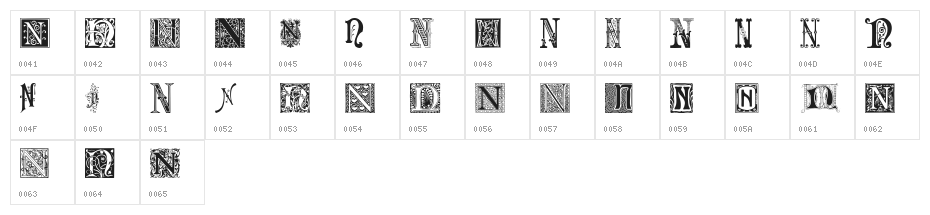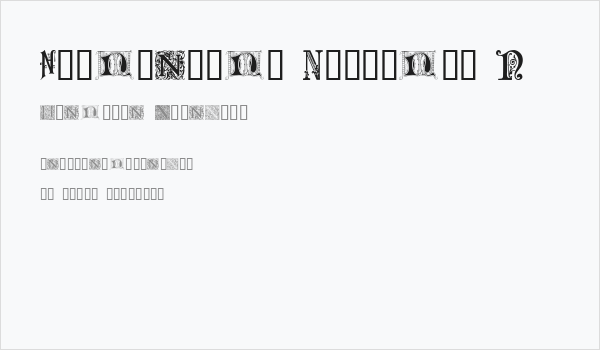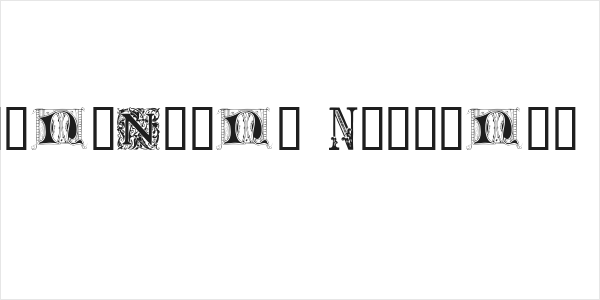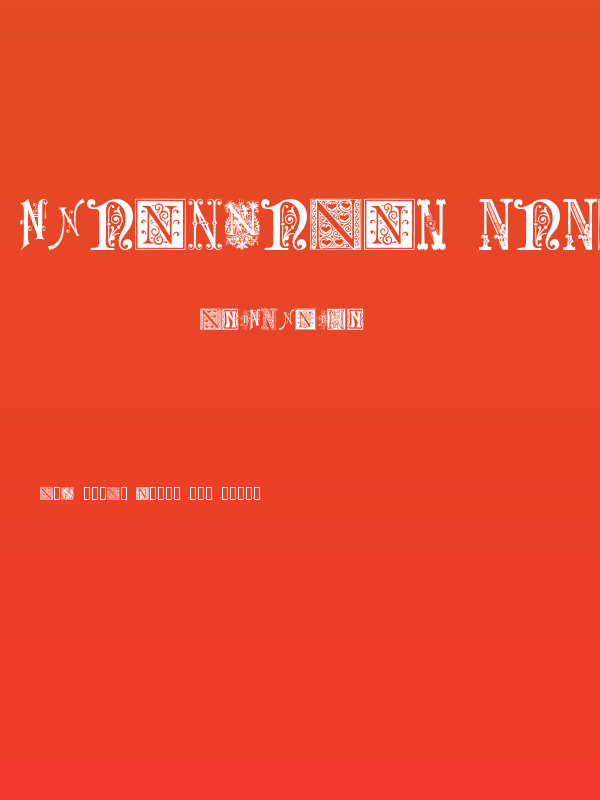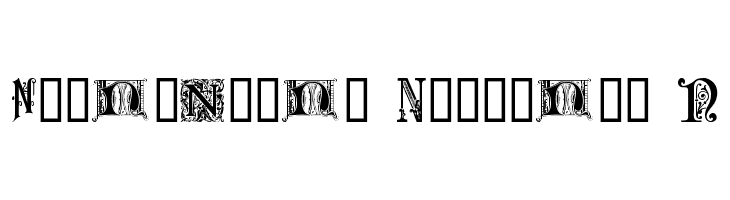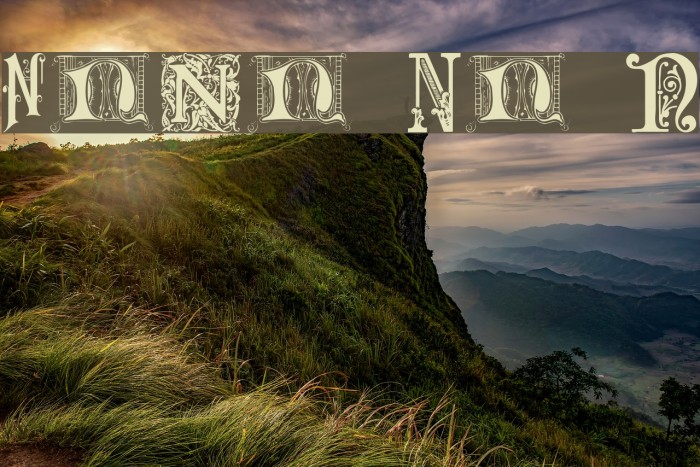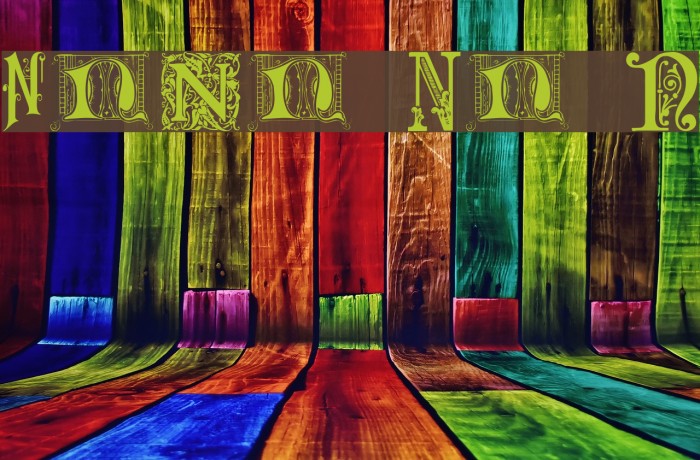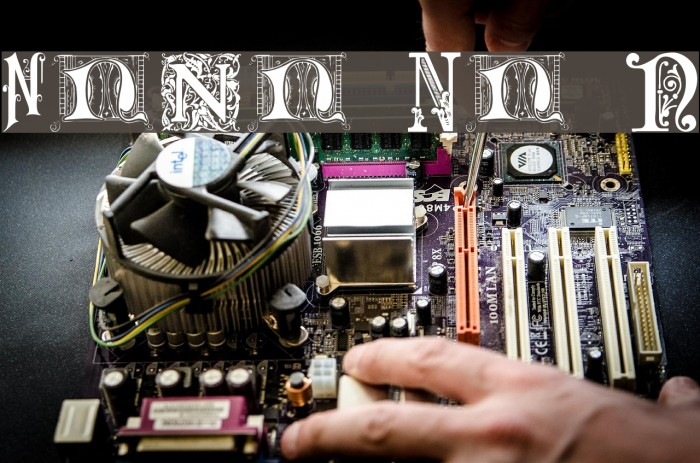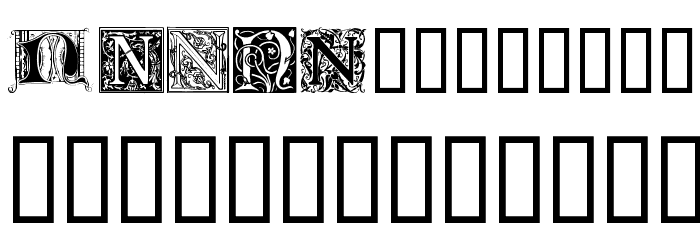
Ornamental Initials N Font
Ornamental Initials N Description
This font features highly decorative and intricate designs, each letter 'N' is uniquely styled with ornate patterns and embellishments. The font showcases a variety of artistic elements such as floral motifs, swirling lines, and detailed textures, making each character a piece of art. The letters are enclosed in rectangular frames, enhancing their ornamental appearance. This style is reminiscent of historical manuscripts and decorative initials used in old books, providing a sense of elegance and sophistication.
| Overall Style | Vintage |
| Use Case | Logos, Headlines, Decorative elements |
| Proposed Projects | Ideal for use in vintage-themed projects, wedding invitations, historical book covers, or any design requiring a touch of elegance and artistry. |